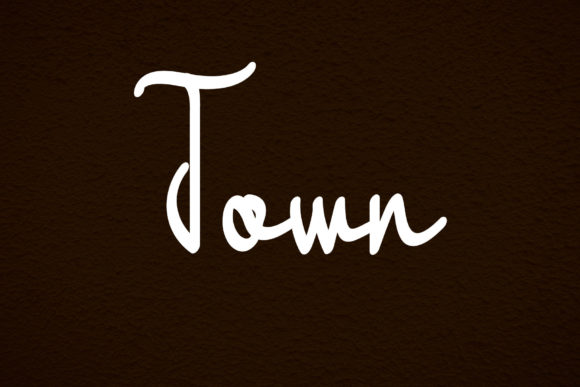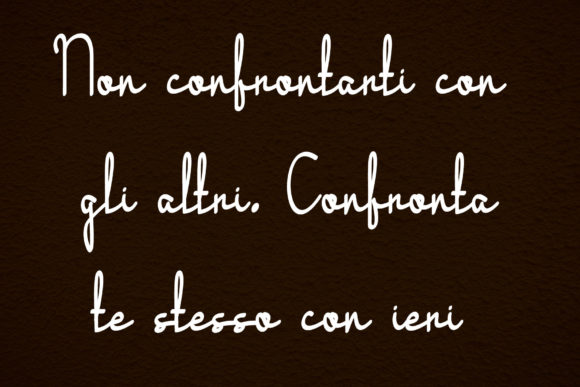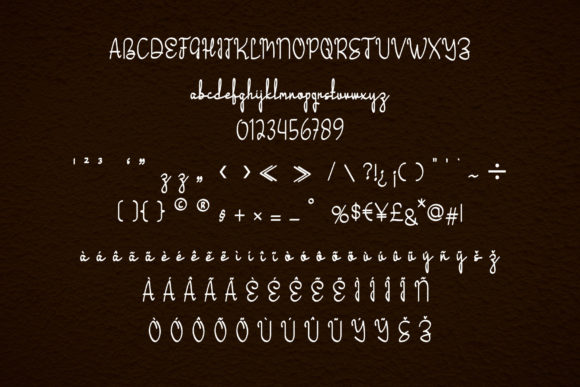
Introduction to Grassina Font
Imagine you’re working on a creative project, pouring your heart and soul into every detail, and then you stumble upon the perfect font to bring it all together. For designers, this moment is pure magic – it’s the moment when all the pieces fall into place, and the design comes alive. And, for many of us, that perfect font is the Grassina Font.
As a refined script font, Grassina Font is the epitome of sophistication and elegance, making it a valuable design resource for any project. With its stylish alternates and ligatures, this font adds a touch of refinement to even the most mundane designs, elevating them to new heights. Whether you’re working on a free download or a high-quality commercial project, Grassina Font is the perfect match.
- Perfect for designers looking for a unique and elegant font to elevate their designs
Honest Review: Grassina Font
As a designer, I’m always on the lookout for high-quality design resources to elevate my creative projects. Recently, I had the chance to explore the Grassina Font, and I must say, it’s a great addition to any design arsenal.
- High-quality design: The Grassina Font boasts a beautiful, intricate design that’s perfect for adding a touch of elegance to any project.
While the Grassina Font is a great resource, there are a few limitations to keep in mind:
- Limited font styles: The font comes in a limited number of styles, which may not be suitable for every project.
- Not ideal for large-scale text: Due to its intricate design, the font may not be the best choice for large-scale text or headings.
Overall, the Grassina Font is a great addition to any design library. While it may have some limitations, its high-quality design and free download make it a valuable resource for designers working on creative projects.
Grassina Font Overview
Grassina Font is a high-quality design resource available for free download, perfect for creative projects requiring a unique touch. This versatile font features a transparent background, allowing for seamless integration into various design elements.
Tips for Getting the Most Out of Grassina Font
To get the most out of Grassina Font, try experimenting with different font sizes, colors, and combinations to create unique and visually appealing designs.
Common Use Cases for Grassina Font
Grassina Font is ideal for use in creative projects such as logos, branding materials, and marketing materials. Its transparent background makes it perfect for use on top of images or other design elements.